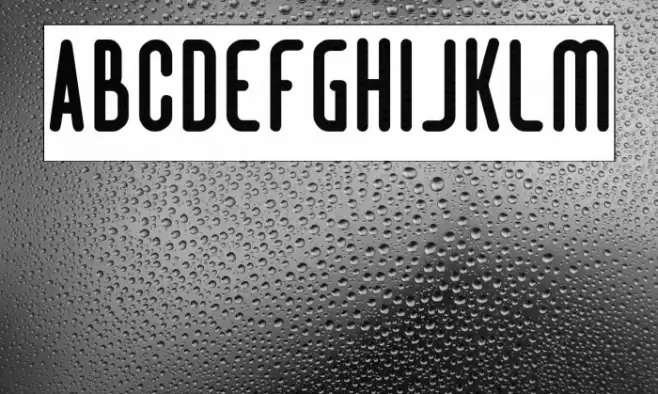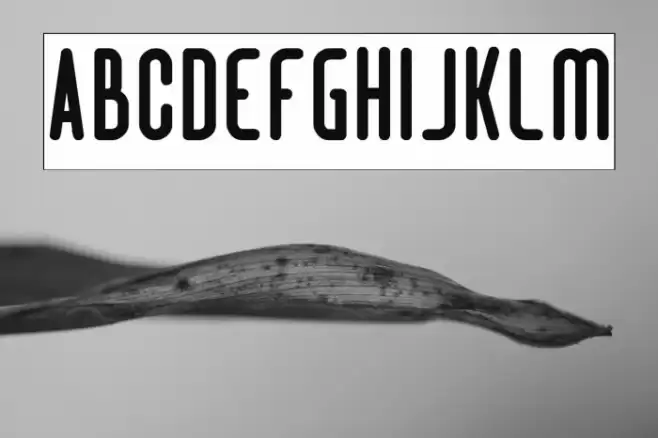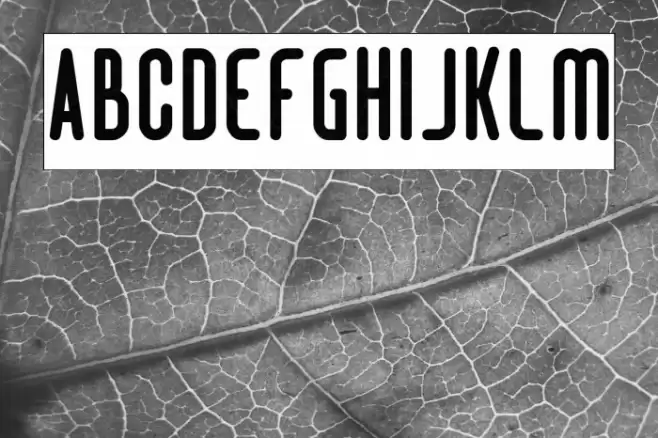
Hotel Motel-Inverse Font
Hotel Motel-Inverse Description
This font features a unique blend of modern and retro elements, characterized by its bold, rounded letterforms and distinctively narrow structure. The uppercase and lowercase letters maintain a consistent height, providing a uniform appearance. The numerals and special characters are designed with the same rounded edges, enhancing the cohesive look. Its clean lines and smooth curves make it highly legible, while the narrow width adds a touch of elegance. The font's playful yet sophisticated style makes it versatile for various design applications.
A bold, rounded font with a modern-retro vibe and narrow structure from Uncategorized fonts.
- Font: Hotel Motel-Inverse
- Proposed Projects: Ideal for branding, signage, posters, and any project seeking a modern yet retro aesthetic.
- Use Case: Headlines, Logos, Signage